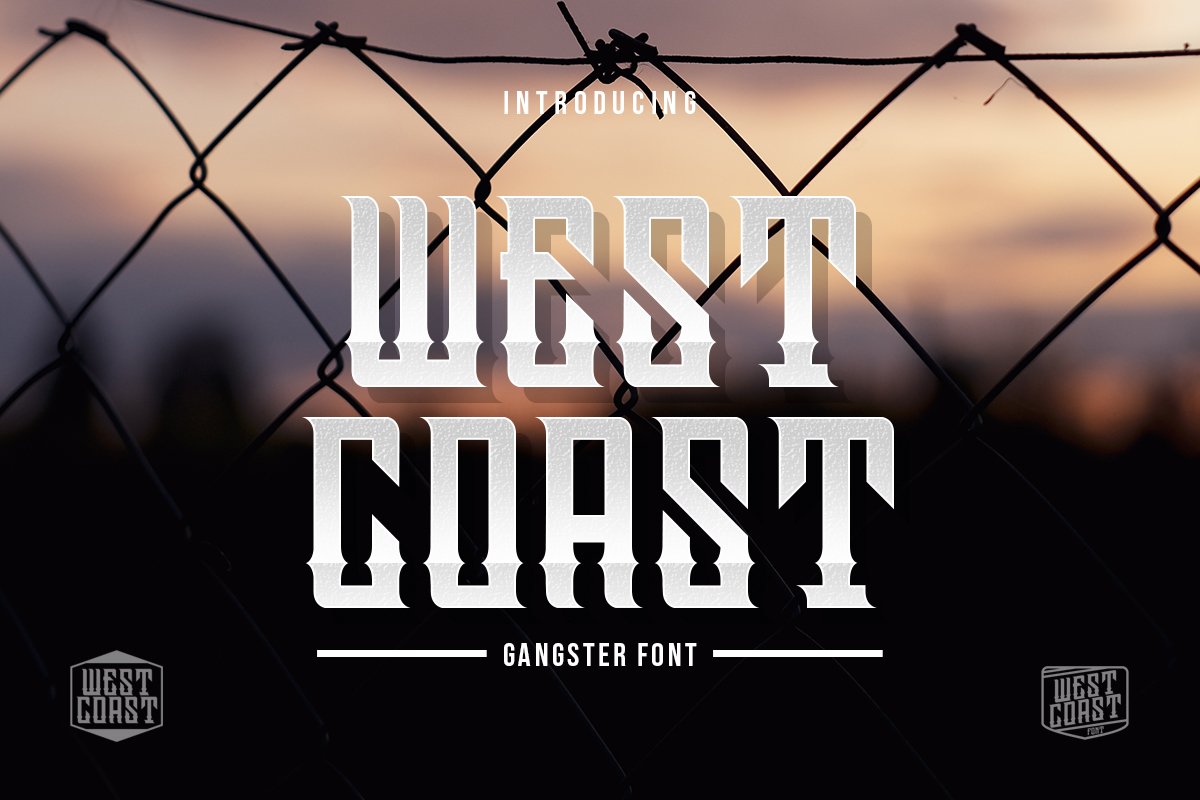
Introducing our new product the name Westcoast Font Family. Gangster font perfect for tattoo design, logo studio tattoo, shirt design, poster, branding, etc.
FEATURES :
• Uppercase
• Lowercase
• Number
• Punctuation
• Multilingual